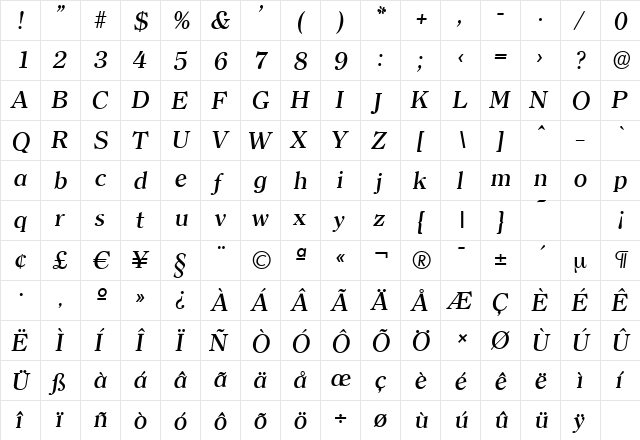
ClearfaceSerial-Medium Italic Font Preview
ClearfaceSerial-Medium Italic
ClearfaceSerial-Medium Italic Font Details
Design Context for ClearfaceSerial-Medium Typeface
ClearfaceSerial-Medium takes a measured approach to typography — its balanced proportions and neutral character make it a reliable workhorse for both digital and print work. The dynamic lean of this cut emphasises speed and emphasis in any layout.